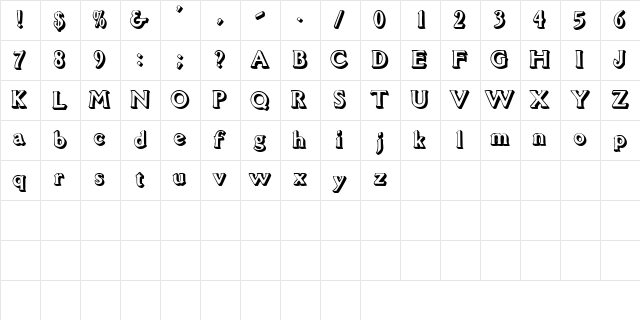
DespiOpenFaceSSK Regular
Design Context for DespiOpenFaceSSK Typeface
DespiOpenFaceSSK is a composed and adaptable typeface that performs quietly and consistently across a wide range of design contexts.